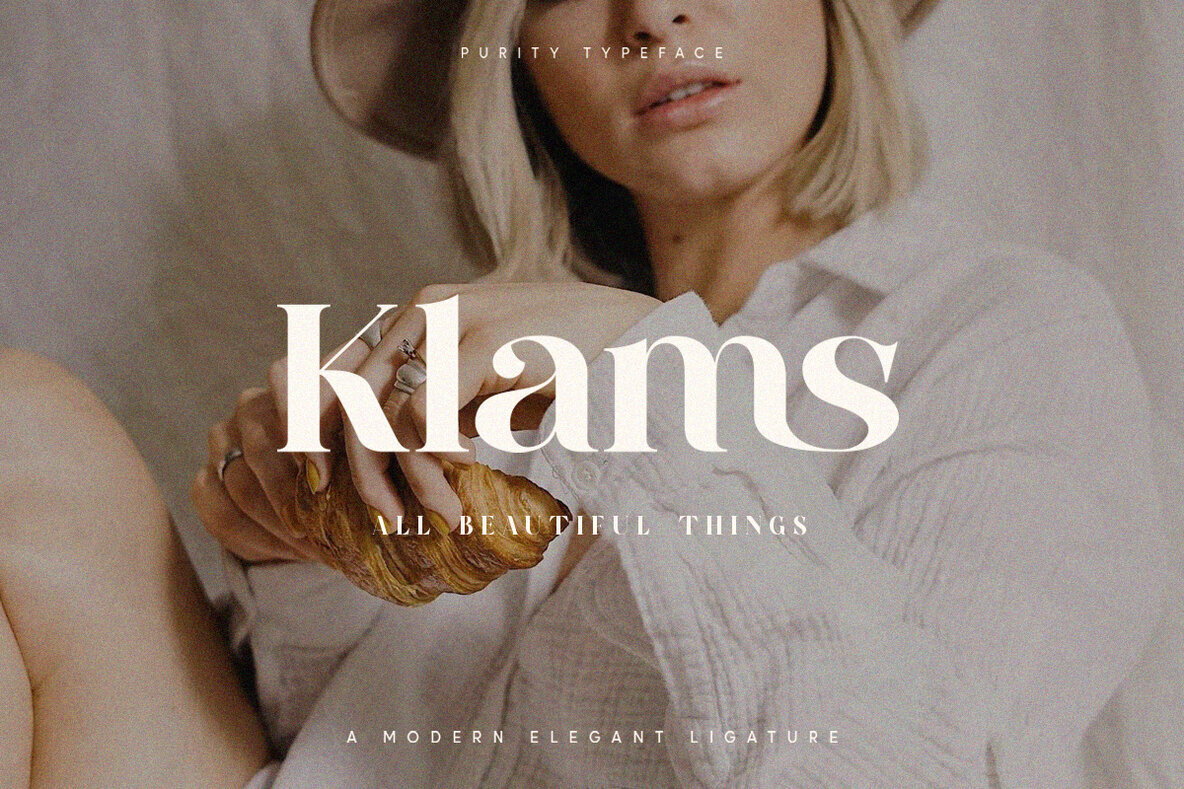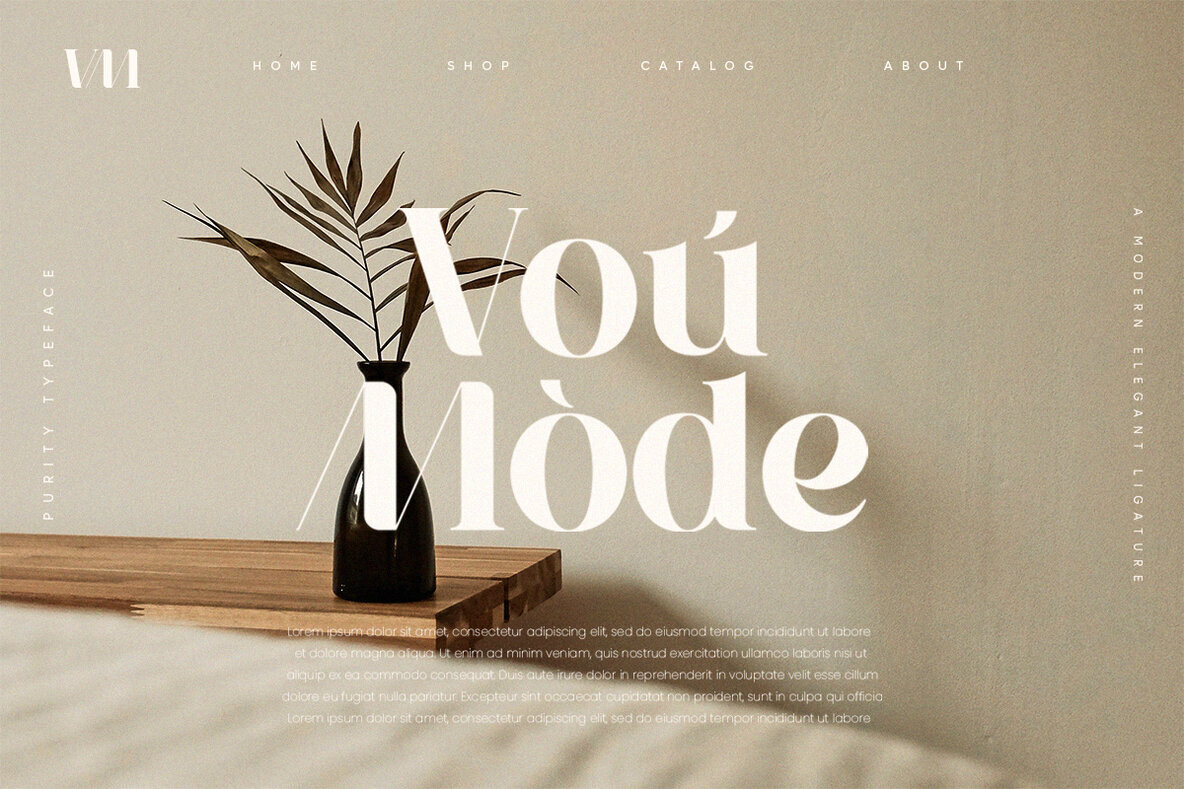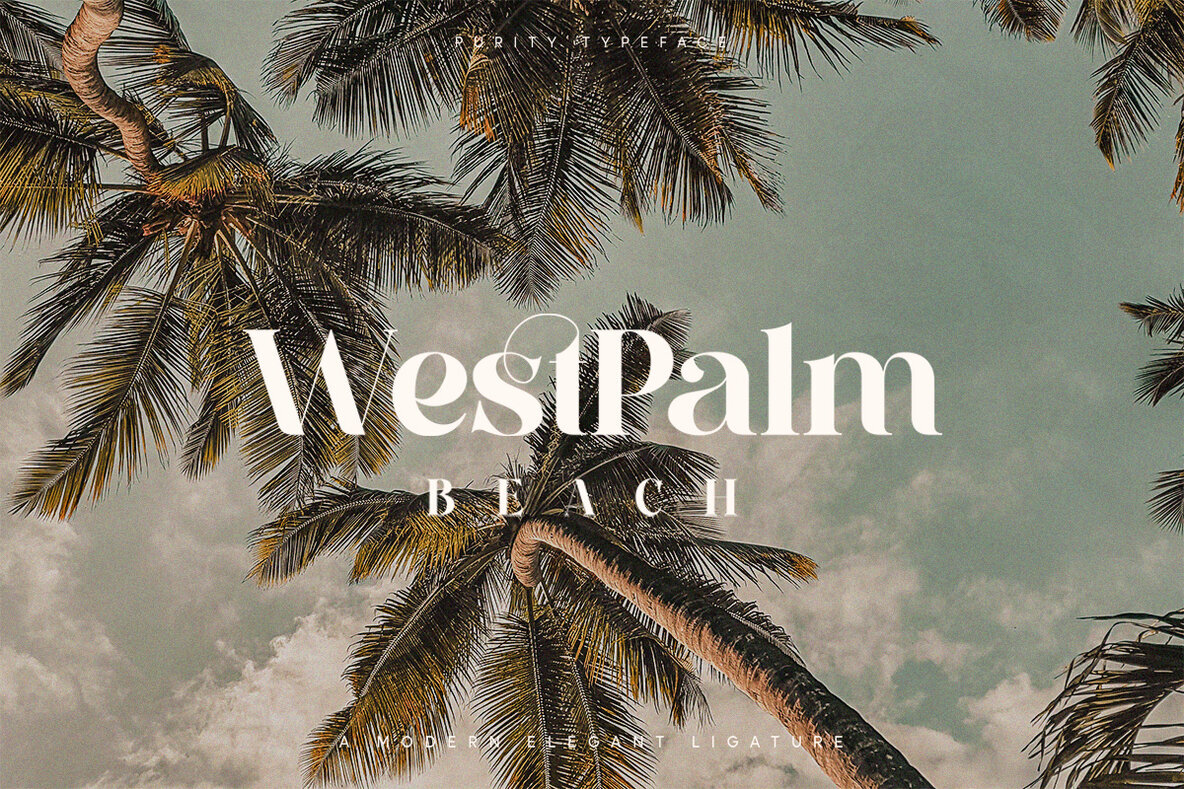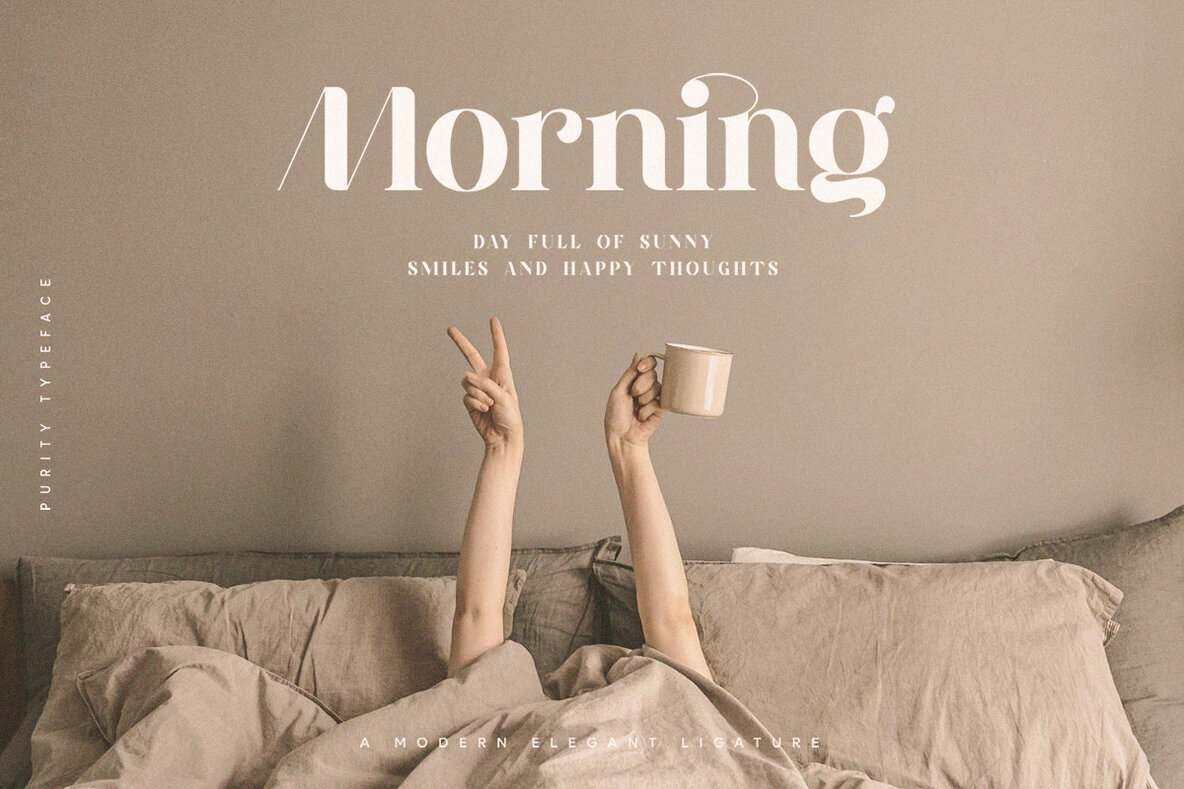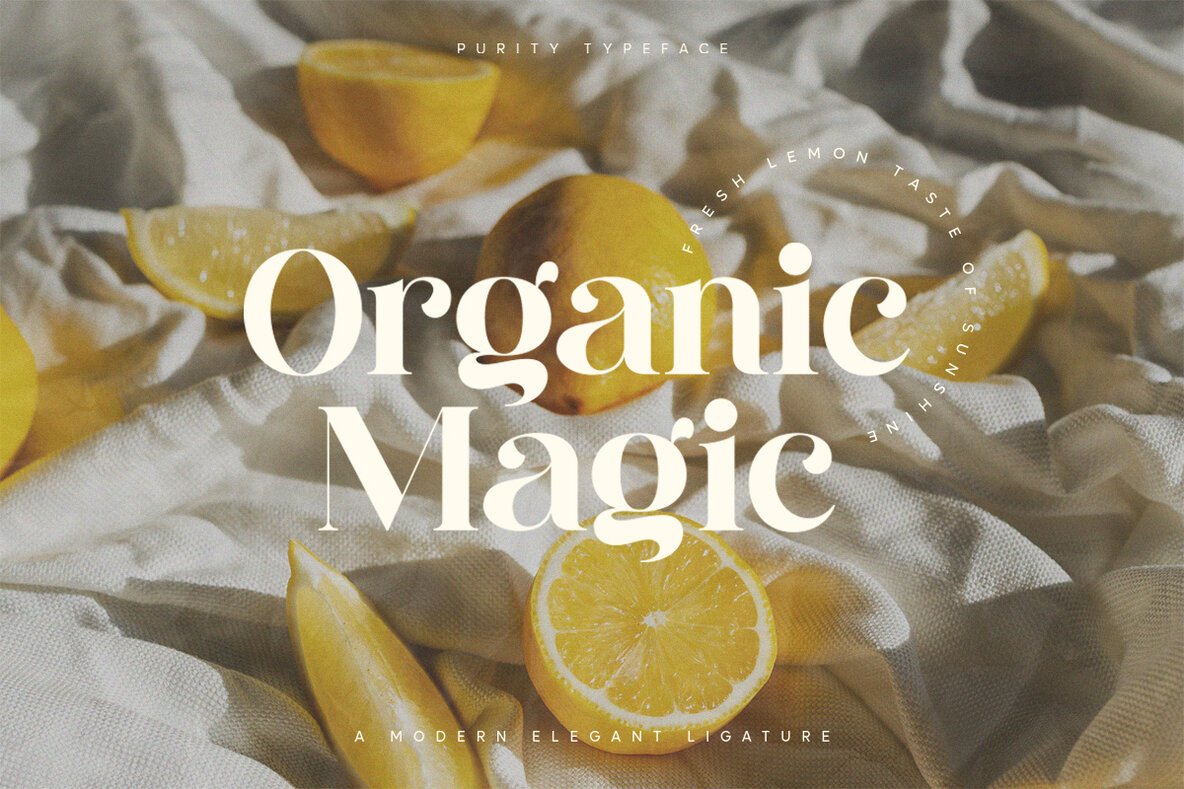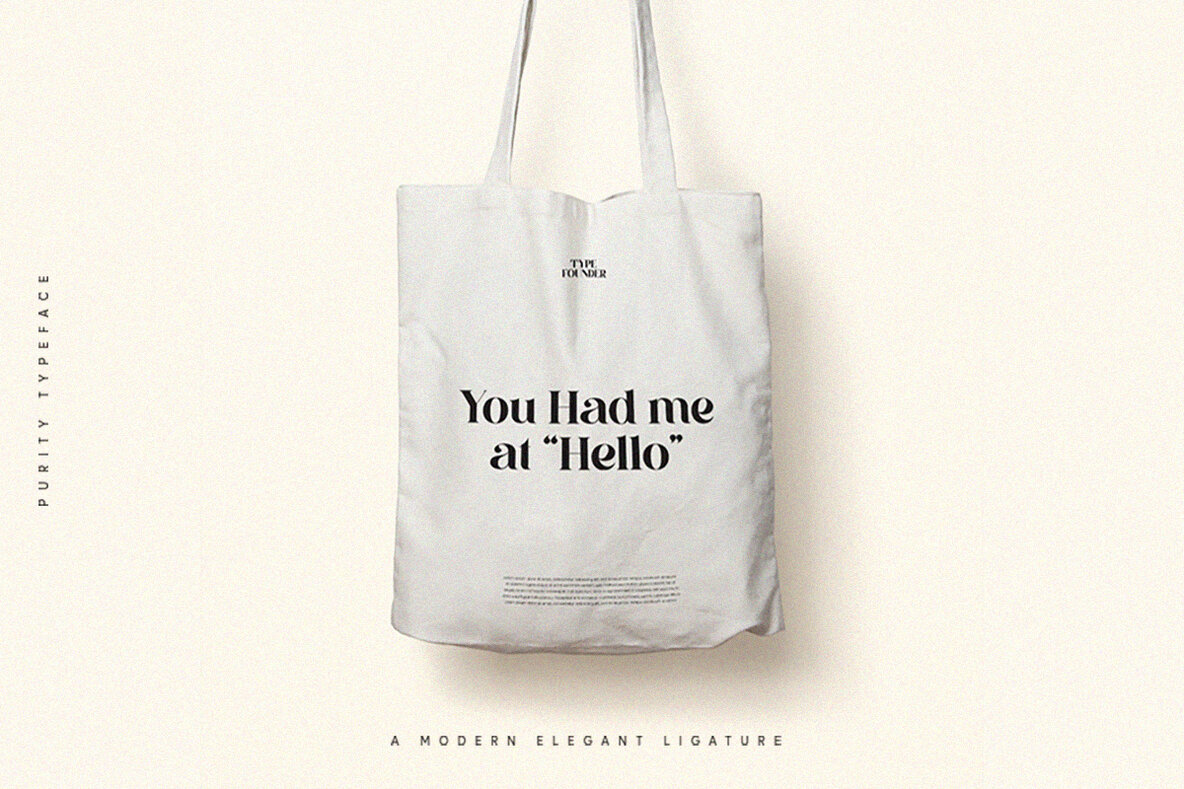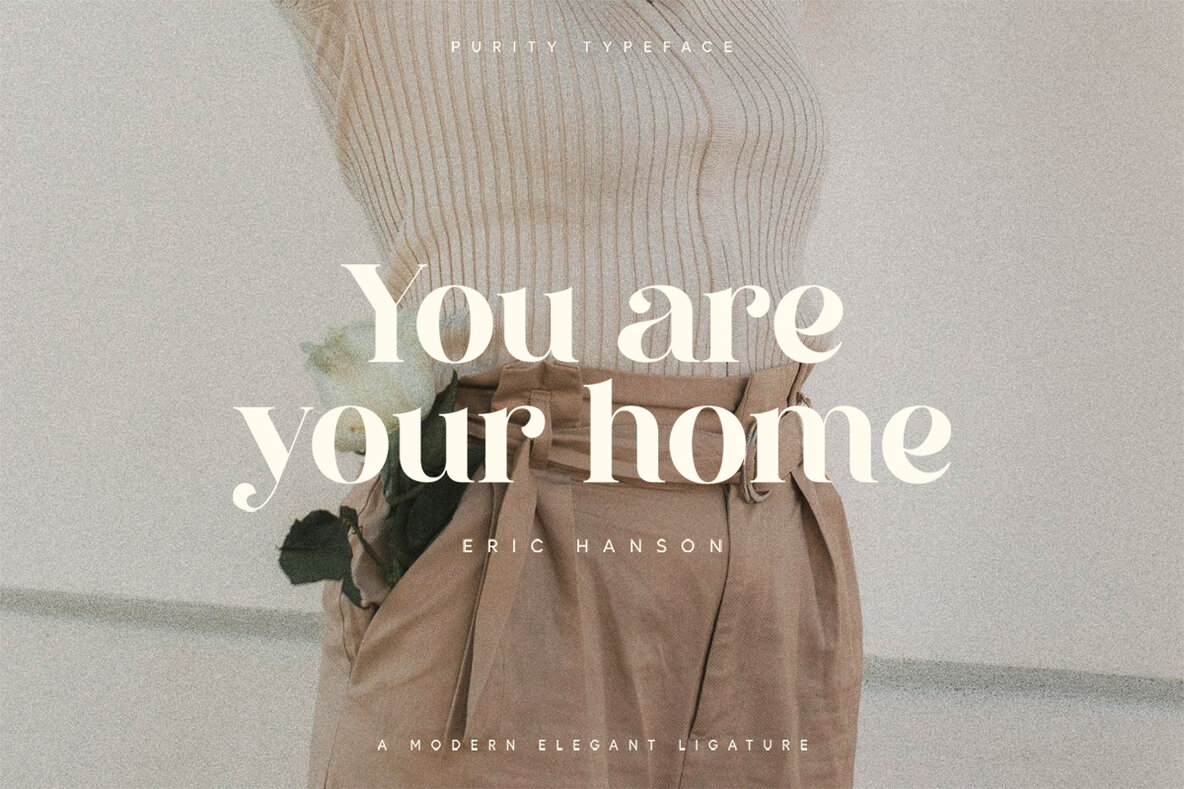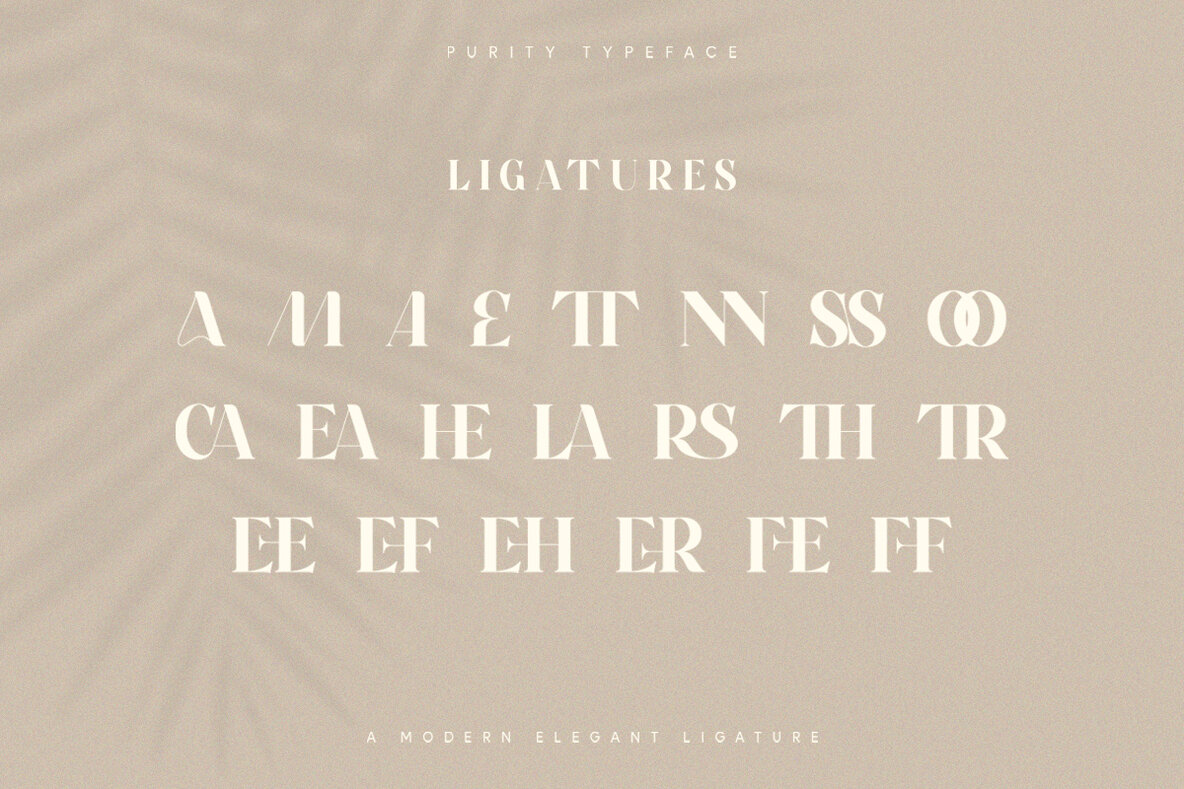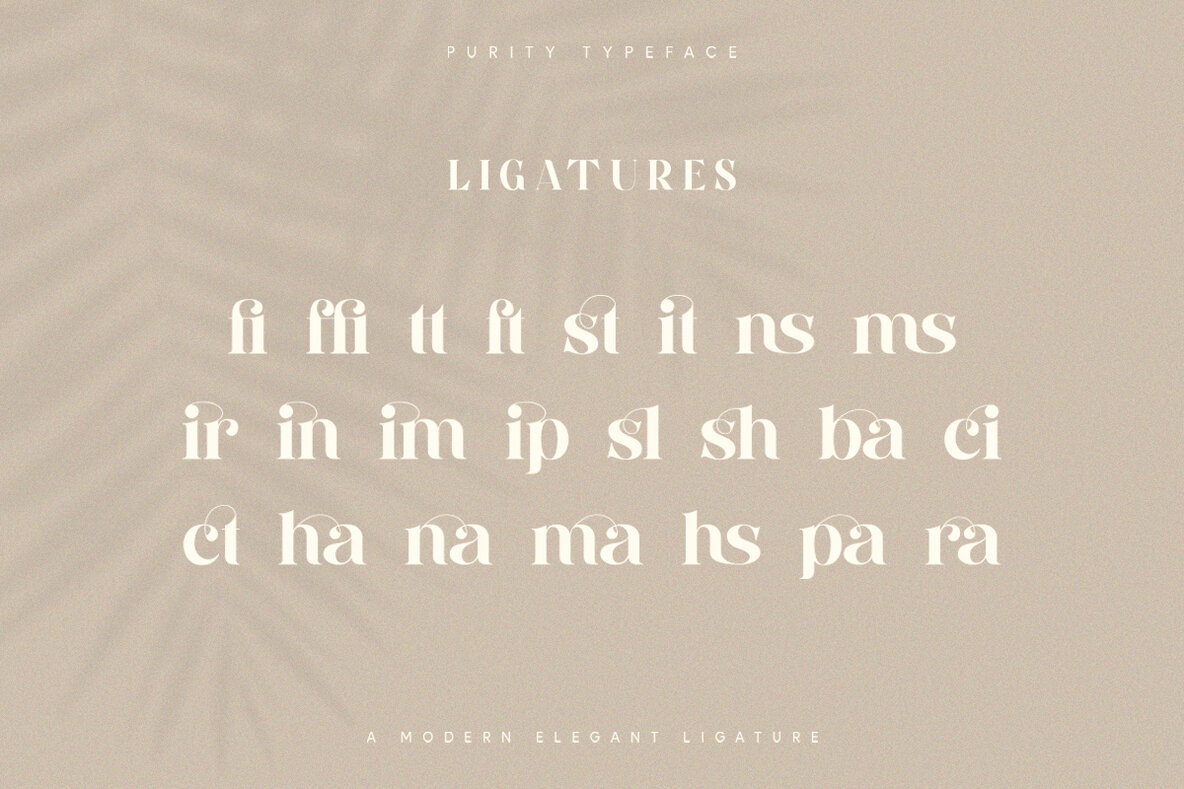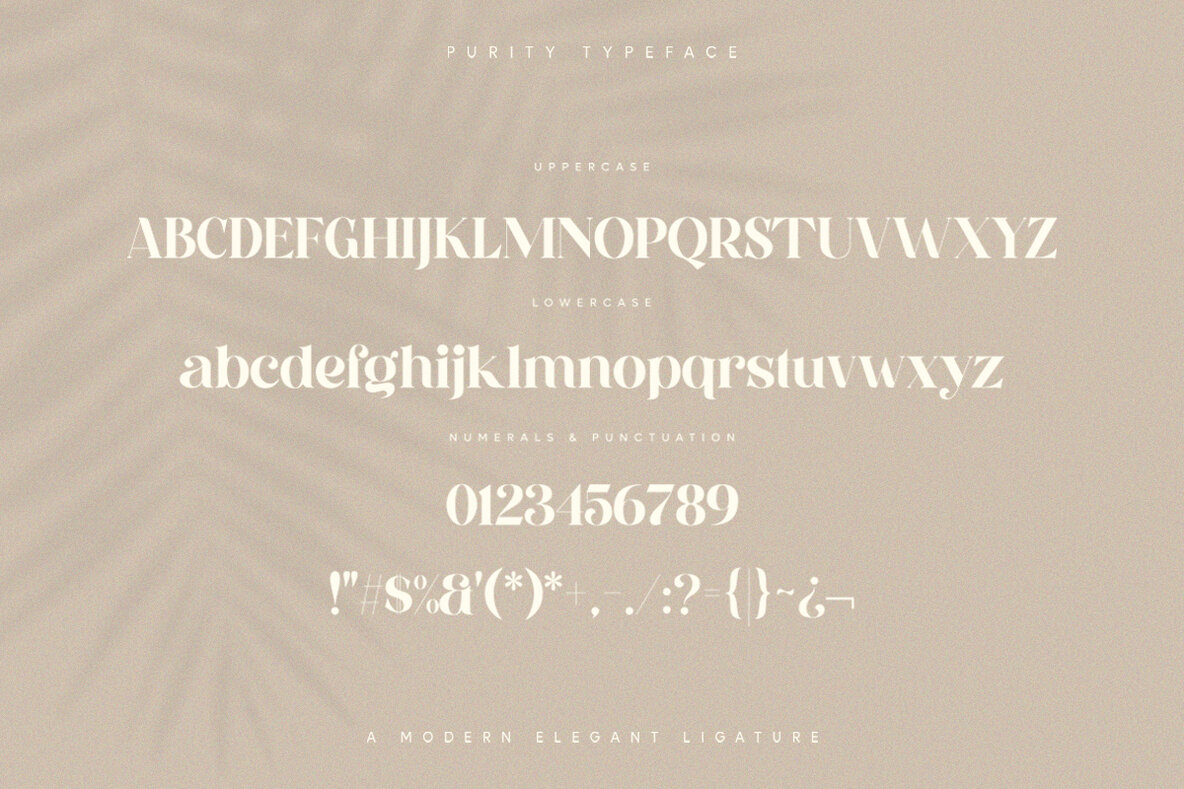
Purity Font
Purity is a modern, elegant serif typeface that will look incredible in any setting. The italic version of this font even adds an extra touch to your branding!